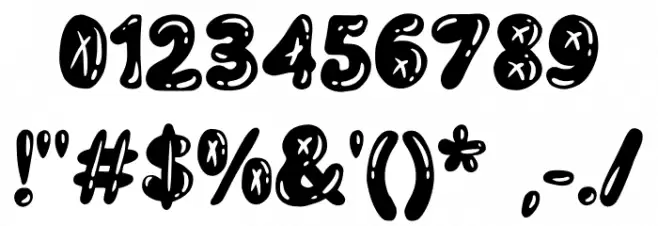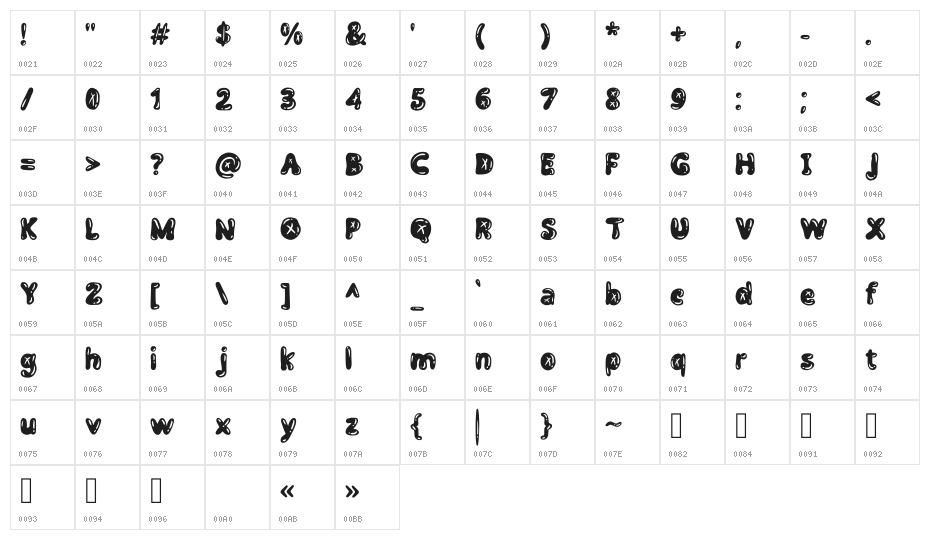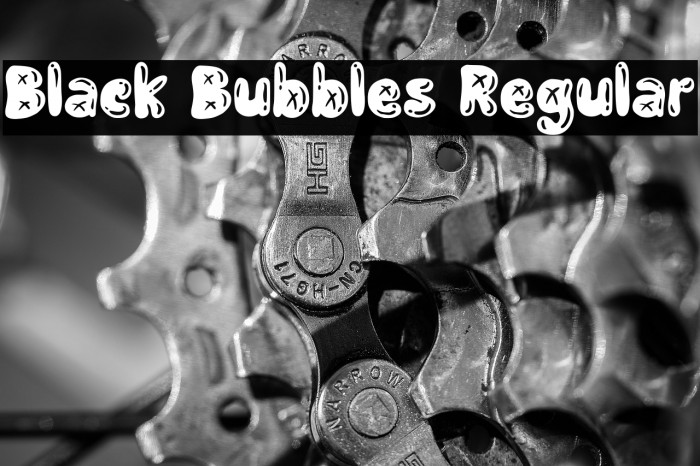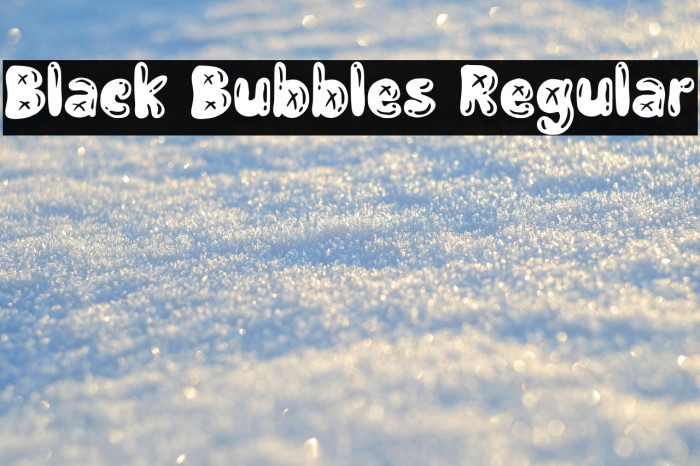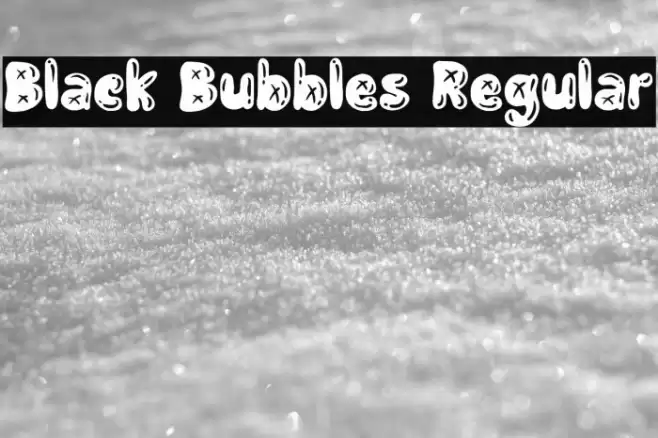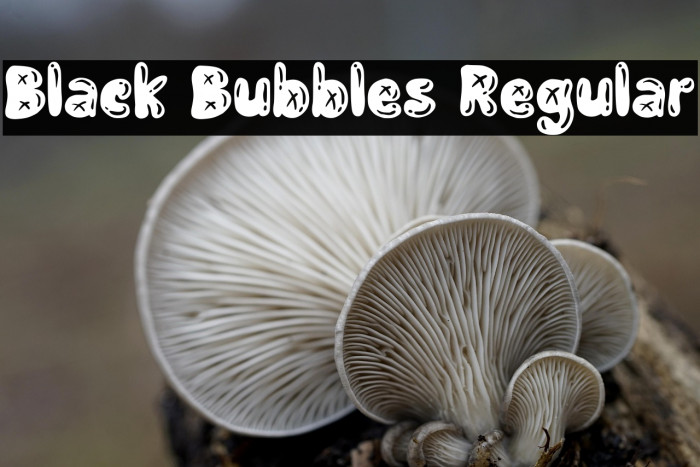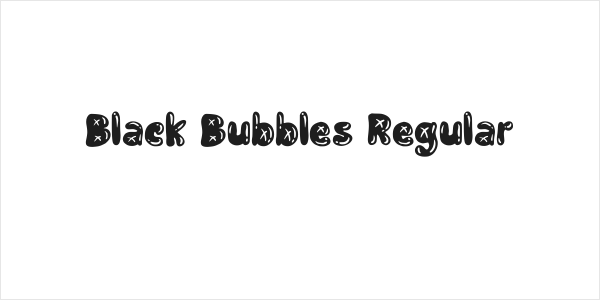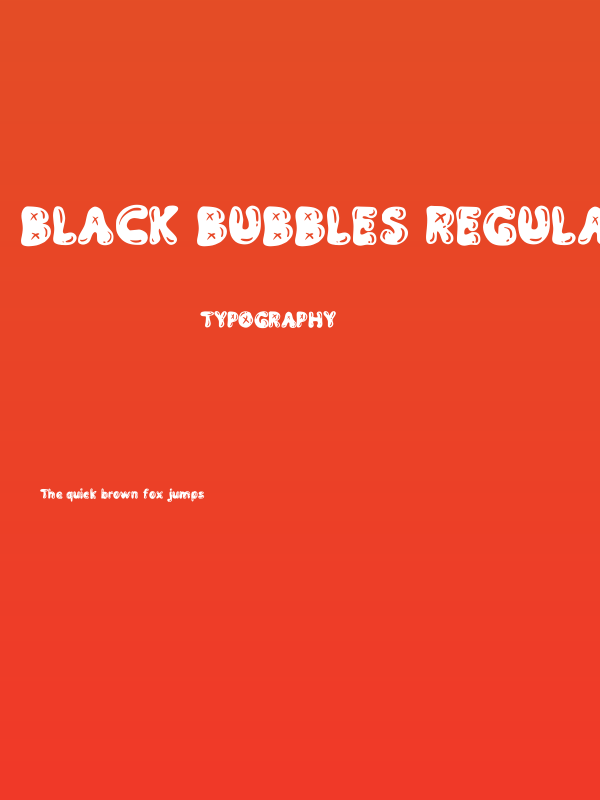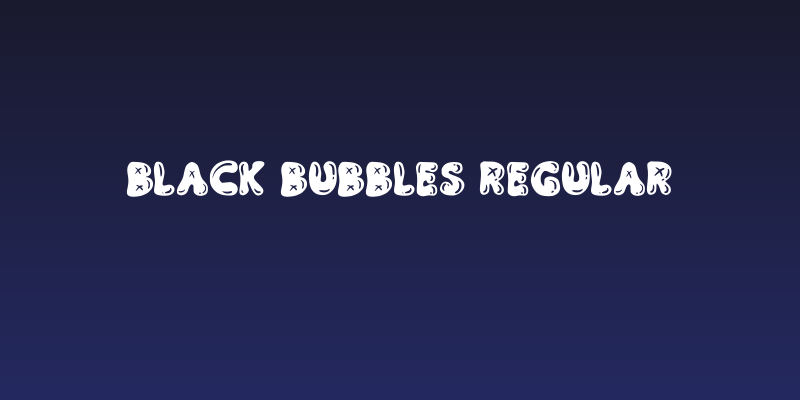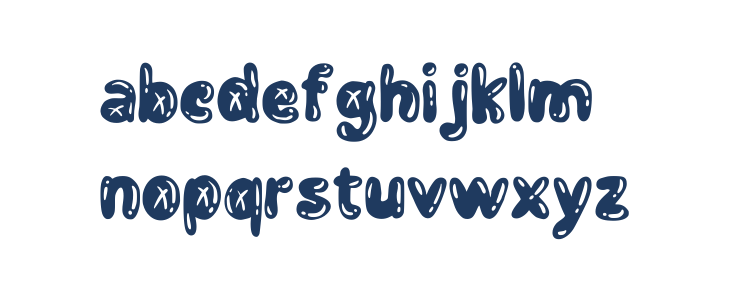
Black Bubbles Regular Font
Black Bubbles Regular Description
This playful and bold font features a bubbly, rounded style with a unique, whimsical touch. Each character is filled with a solid black color, creating a striking contrast against lighter backgrounds. The letters are adorned with small, irregular cutouts that add a playful, almost cartoonish element to the design. This font's thick strokes and rounded edges give it a friendly and approachable appearance, making it ideal for creative and informal projects. The characters are evenly spaced, ensuring readability while maintaining a fun and dynamic look.